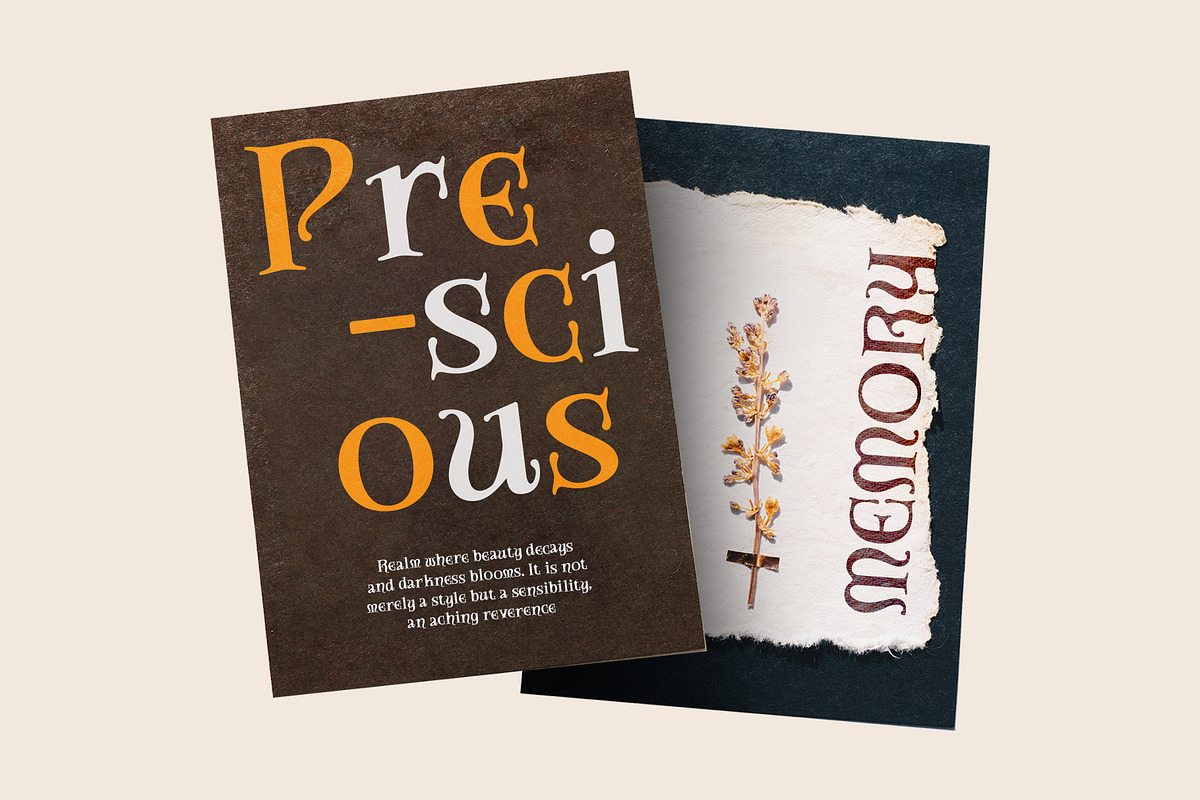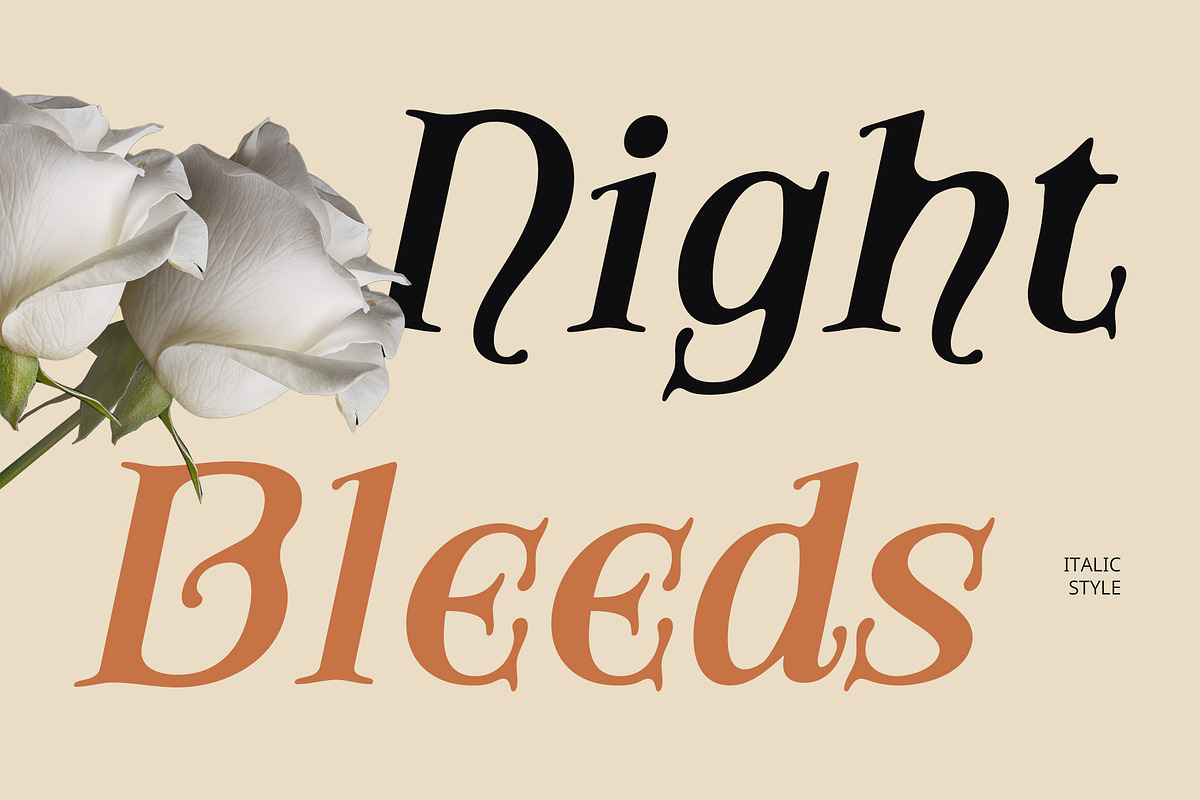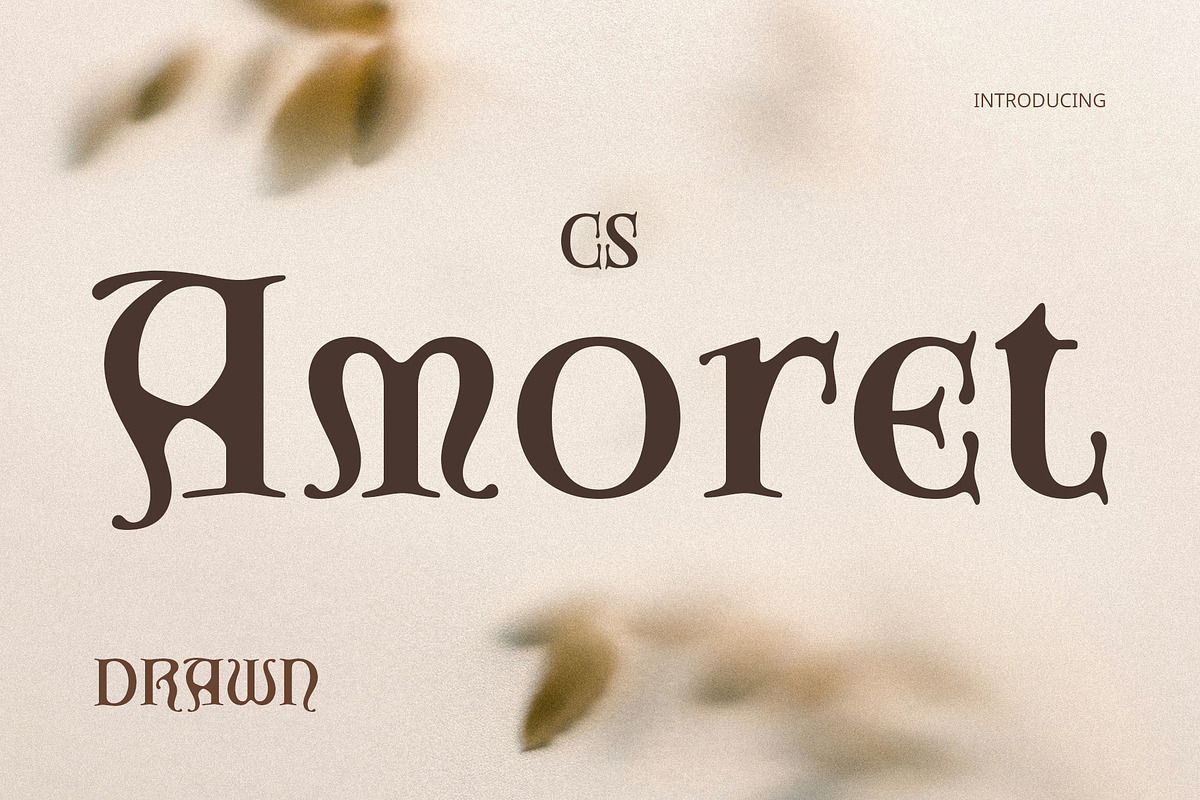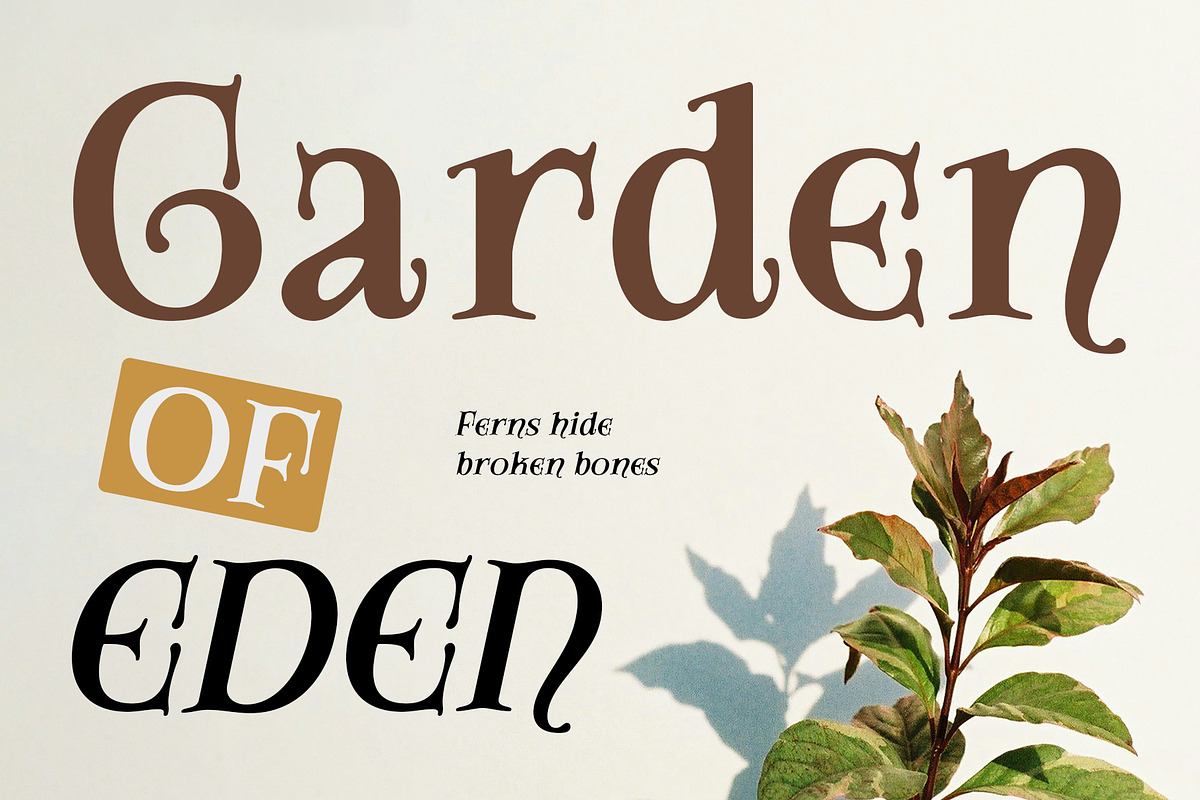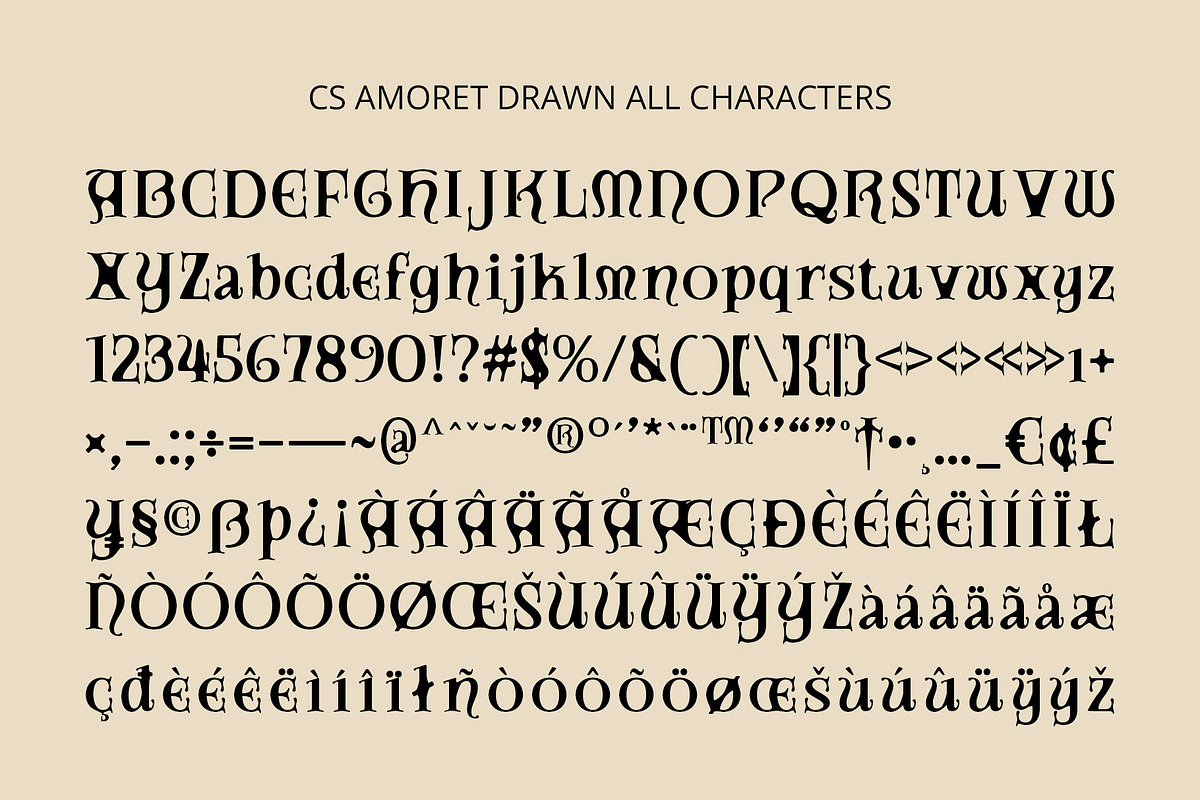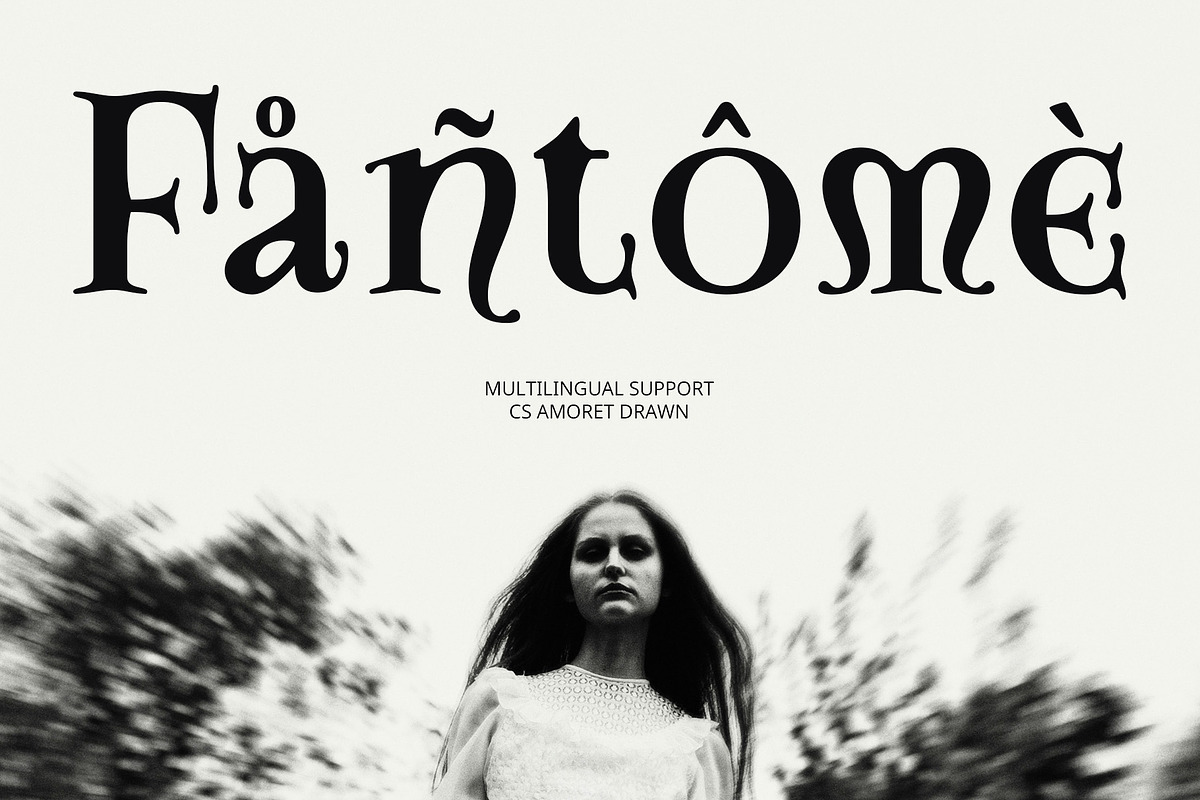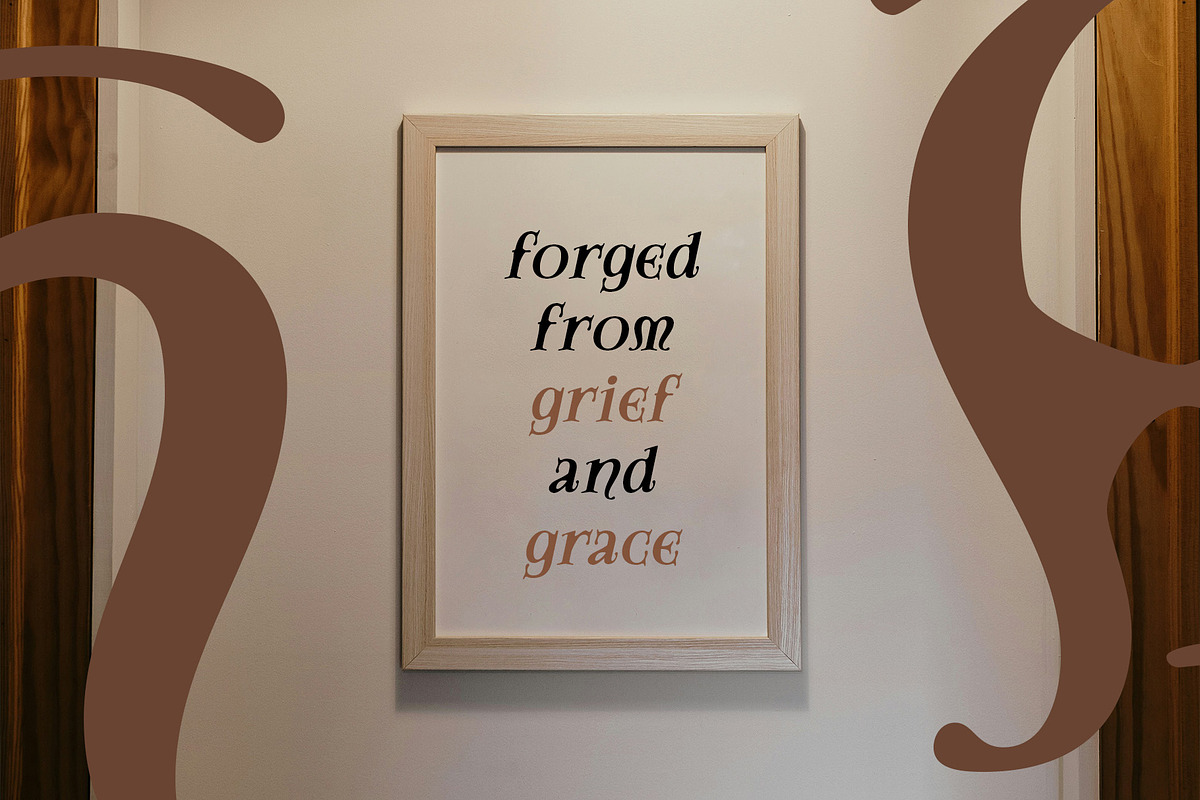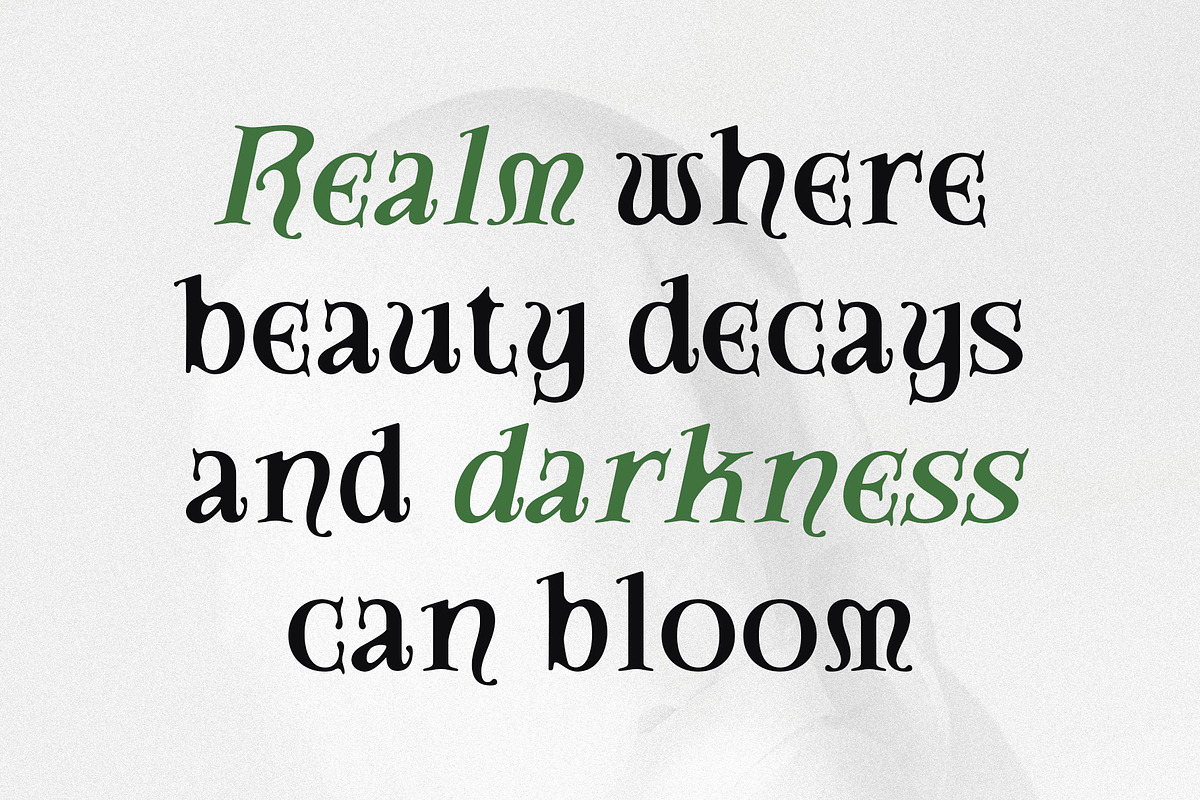
CS Amoret Drawn
CS Amoret Drawn – Timeless Elegance with an Artistic Touch
Uncial-Inspired Form with Graceful Charm This is a classic display serif font that draws inspiration from traditional uncial lettering. Its soft curves and fluid letterforms convey a historical elegance, making it feel both refined and distinctive. The uncial roots provide a sense of timelessness while remaining highly legible and visually compelling.
Drawn Effect for Organic Sophistication The added drawn effect introduces an organic, handcrafted quality to the font, enhancing its artistic essence. This subtle texture softens the overall appearance and gives each character a unique, almost calligraphic personality—ideal for projects that seek a touch of warmth and creative flair.
Delicate Details for a Captivating Presence With its finely crafted strokes and graceful terminals, this handcrafted font radiates a poetic and elegant tone. It’s well-suited for conveying sophistication, charm, and artistry in visual storytelling, whether in modern or vintage-inspired settings.
Perfect for Vintage Editorials, Elegant Branding, and Artistic Designs This classical beauty font is ideal for editorial layouts, historical-themed packaging, luxurious invitations, or creative branding projects. It combines classical beauty with a contemporary hand-drawn twist, resulting in a font that’s both captivating and versatile for refined, character-driven design work.